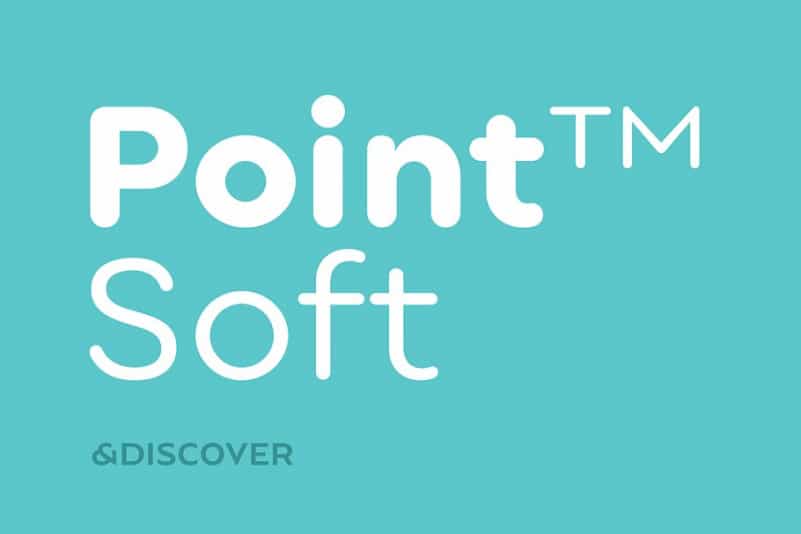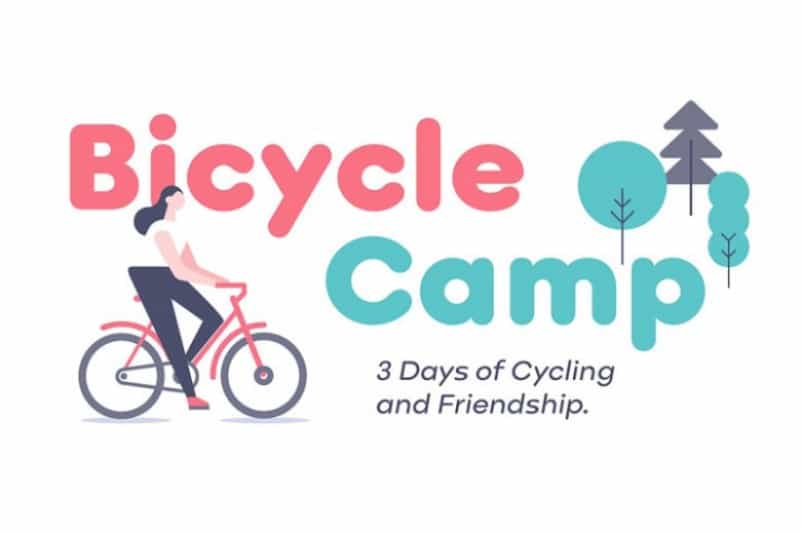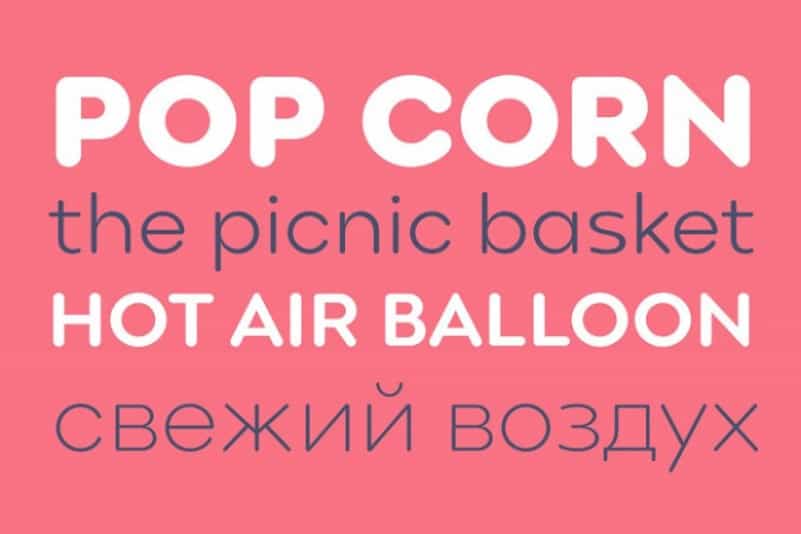
NDISCOVER is now launching their first Point Soft Font Family designed and released by NDISCOVER. PointSoft Font Family is not just a font version of Point(tm) with rounded edges; it represents what an ideal soft geometric font should look like: simple, clean and easy to love – that will make you feel warm and comfortable.